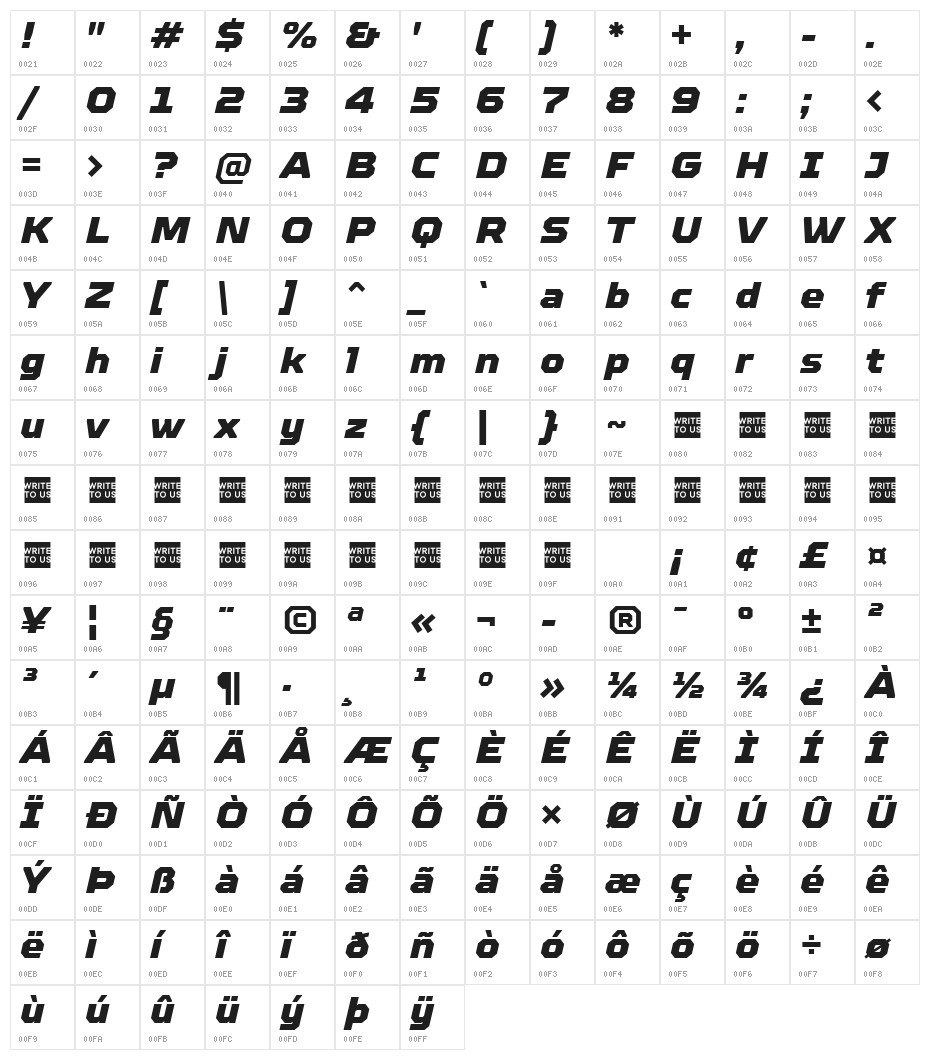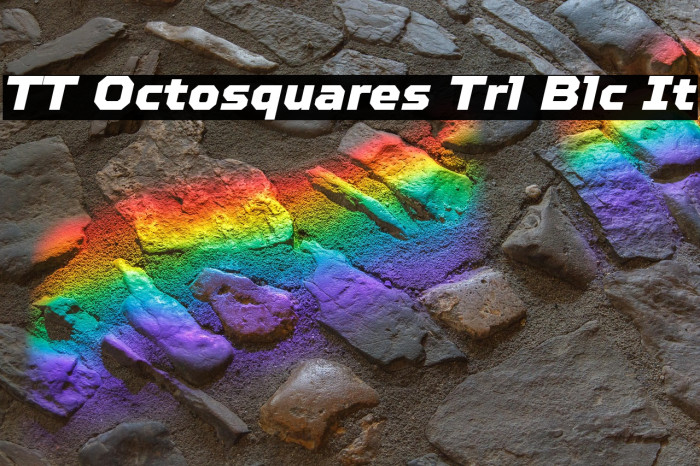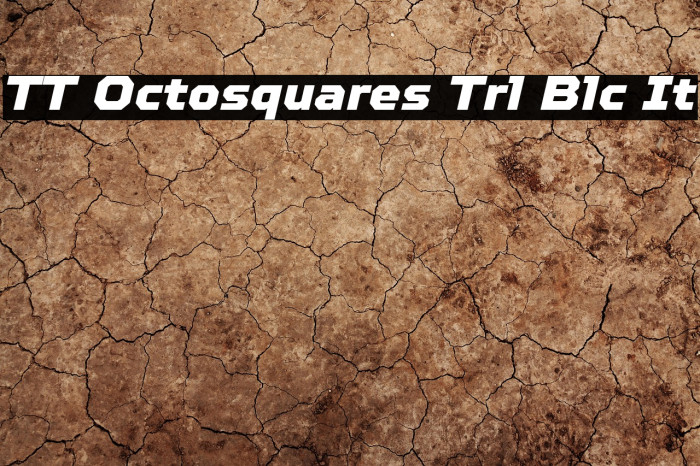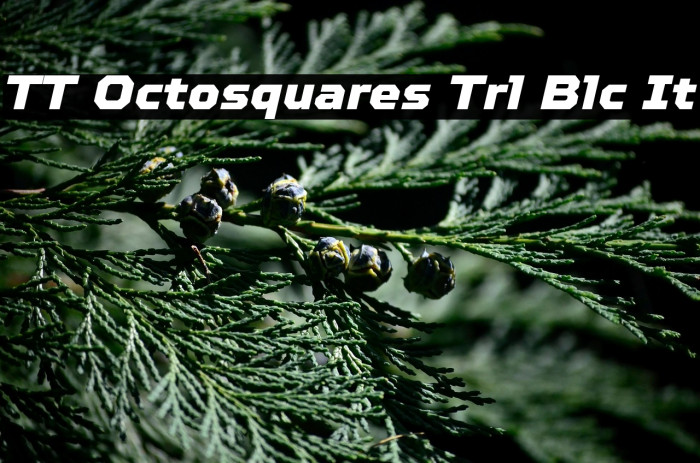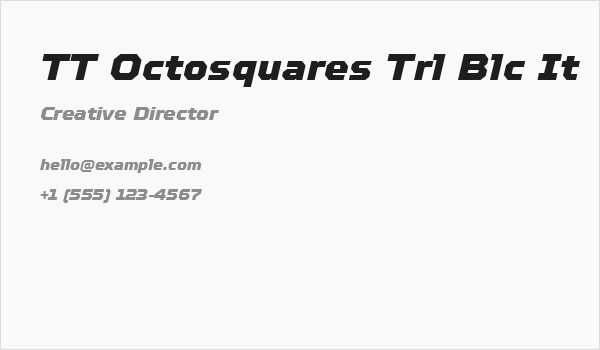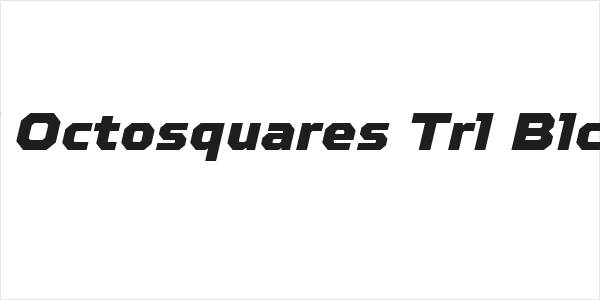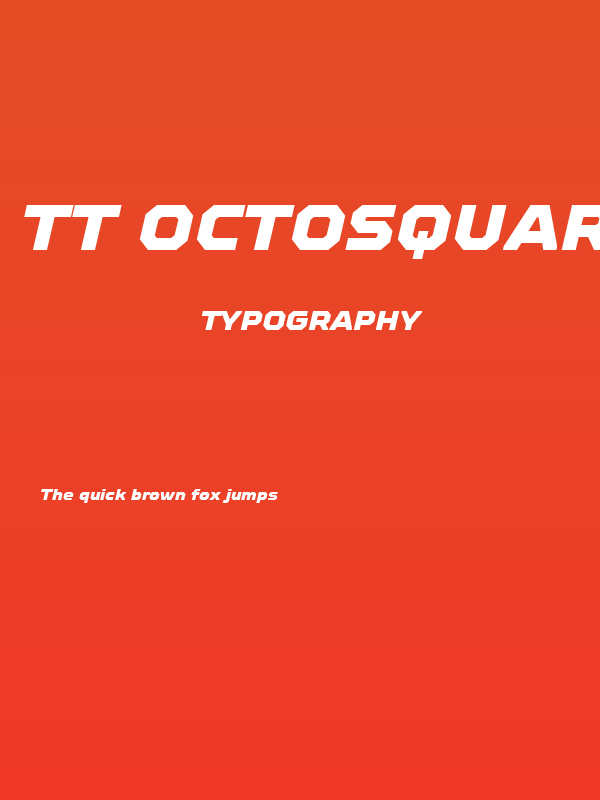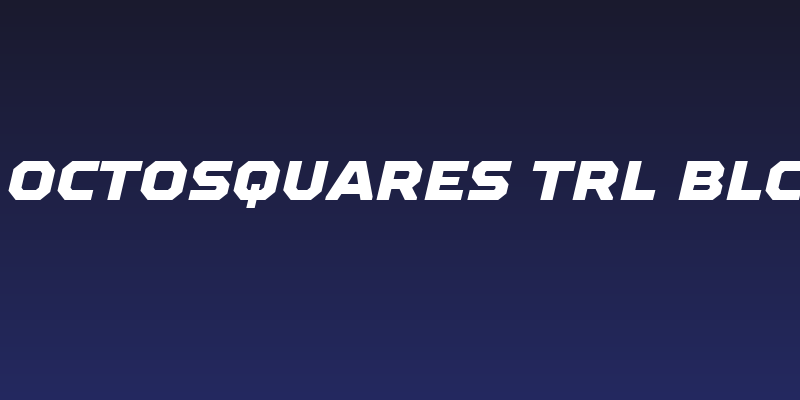
TT Octosquares Trl Blc It Font
TT Octosquares Trl Blc It Description
This font features a bold and angular design with a modern, geometric aesthetic. The characters are constructed with sharp edges and a slight slant, giving them a dynamic and forward-moving appearance. The uppercase and lowercase letters maintain a consistent style, with uniform stroke widths that contribute to a cohesive look. The numerals and special characters are designed to match the overall angular theme, ensuring visual harmony across all elements. The font's unique style makes it stand out, while still maintaining readability.
| Proposed Projects | Ideal for futuristic branding, tech-related projects, sports team logos, and dynamic poster designs. |